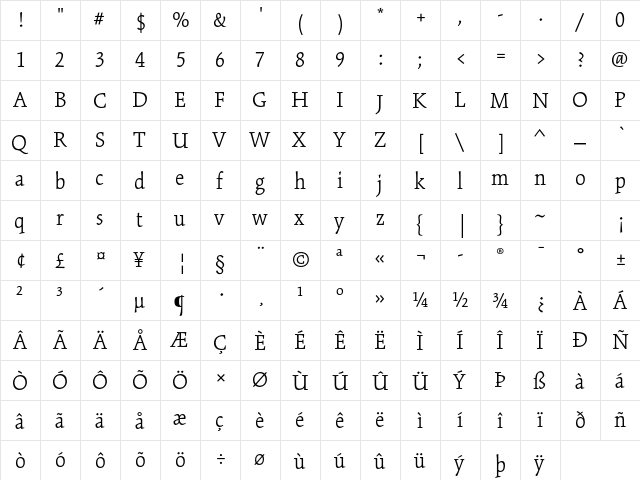
Kinesis Std Light
| Designer | Mark Jamra |
Design Context for Kinesis Std Typeface
Kinesis Std offers clean, dependable letterforms without strong stylistic allegiance, making it a practical choice for designers who need flexibility. Its slender proportions lend an understated elegance to any composition.